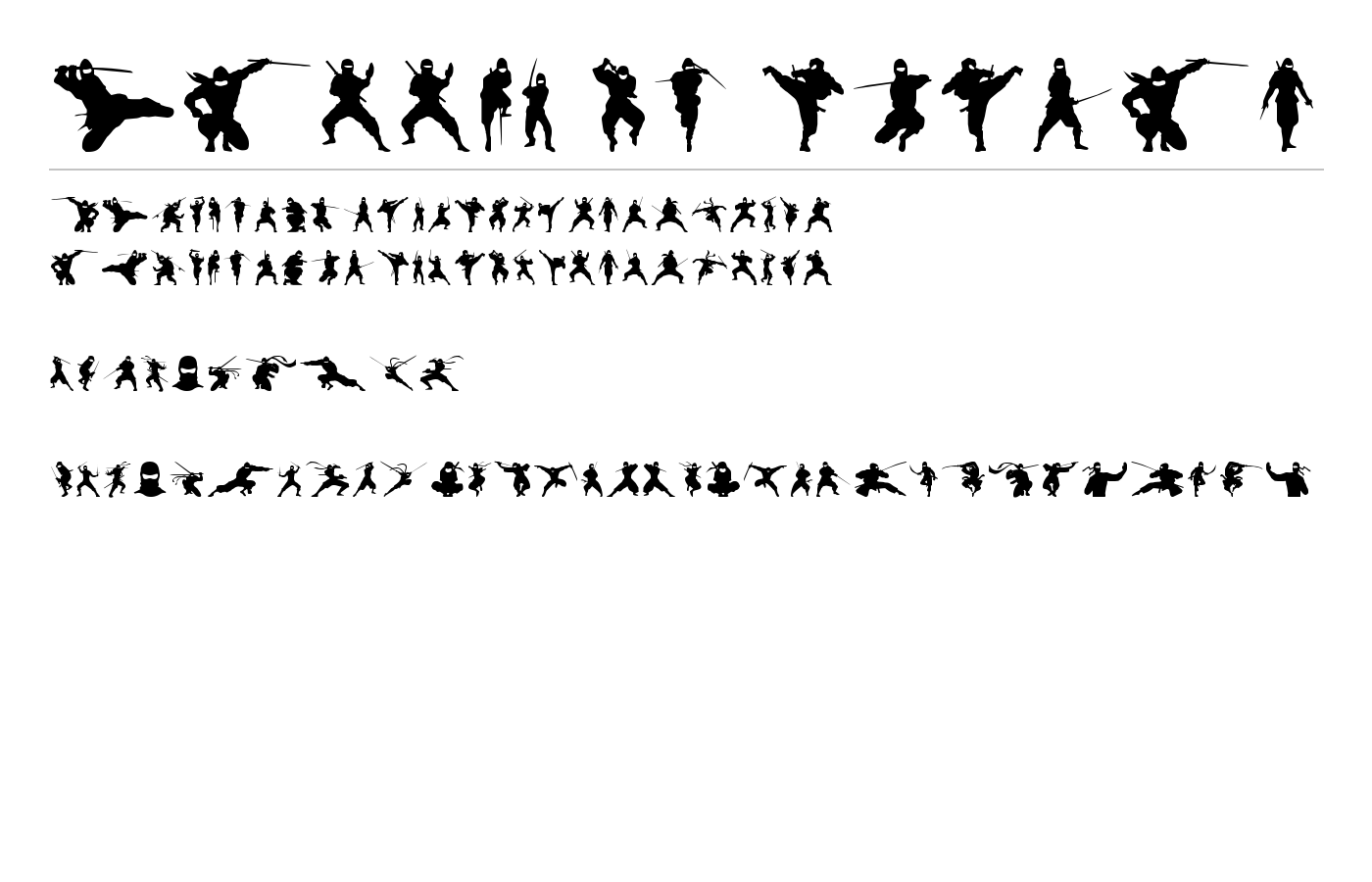
Barrel of Ninjas is a decorative symbol font featuring dynamic black silhouette figures of ninjas in various action poses. It adds a playful and energetic vibe, perfect for creative projects that want to convey stealth, martial arts, or adventurous themes. This font works best in fun branding, posters, comics, or gaming contexts where expressive visuals are key.
Barrel of Ninjas Font
About Barrel of Ninjas Font